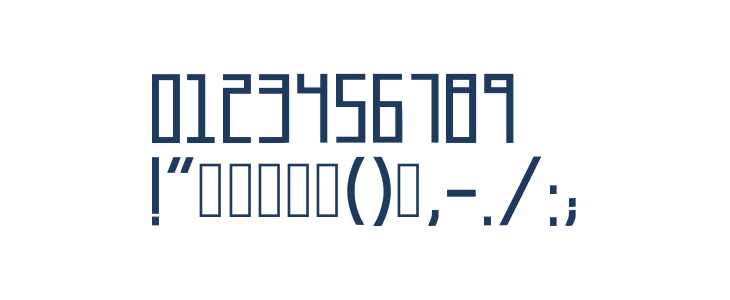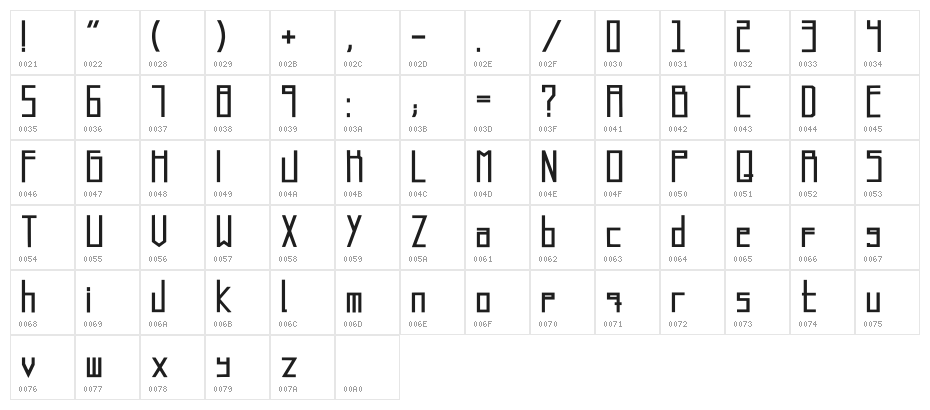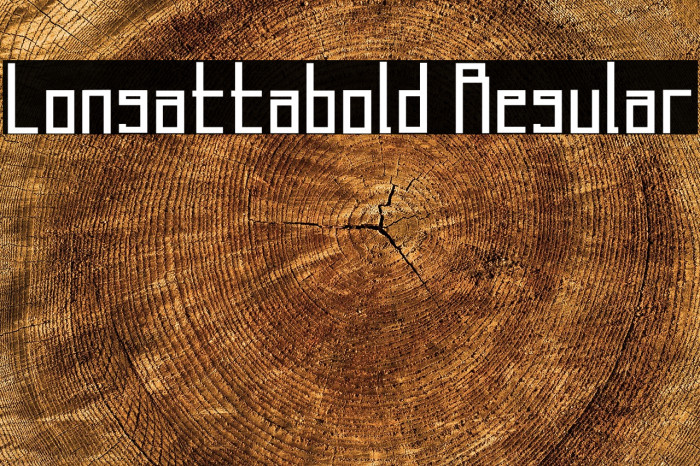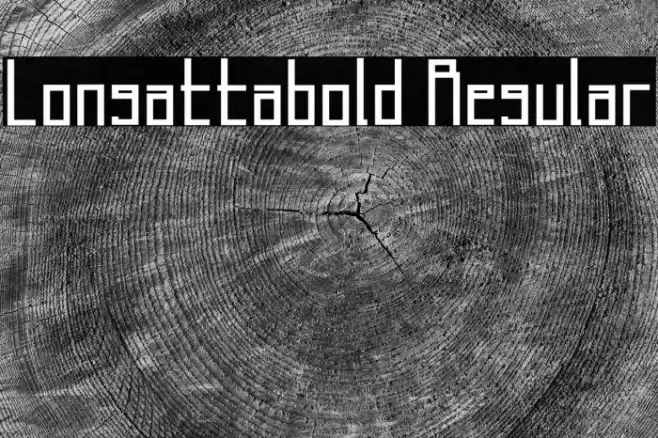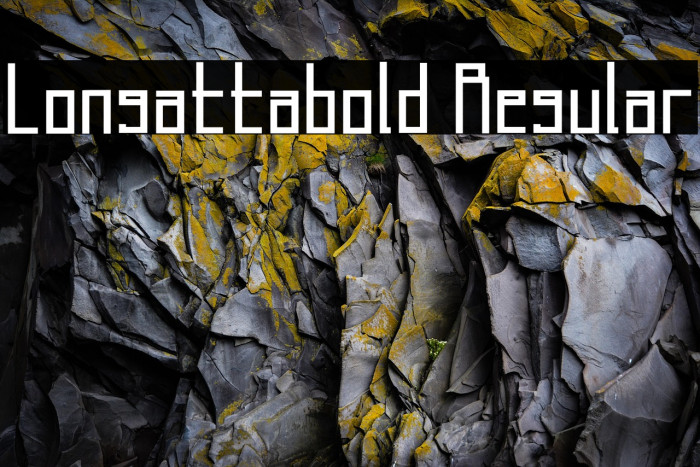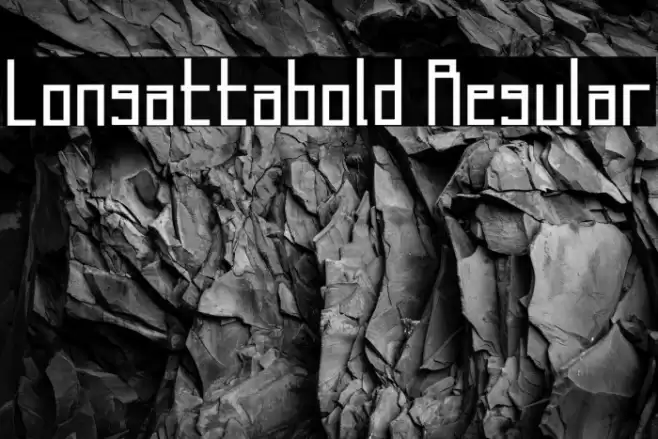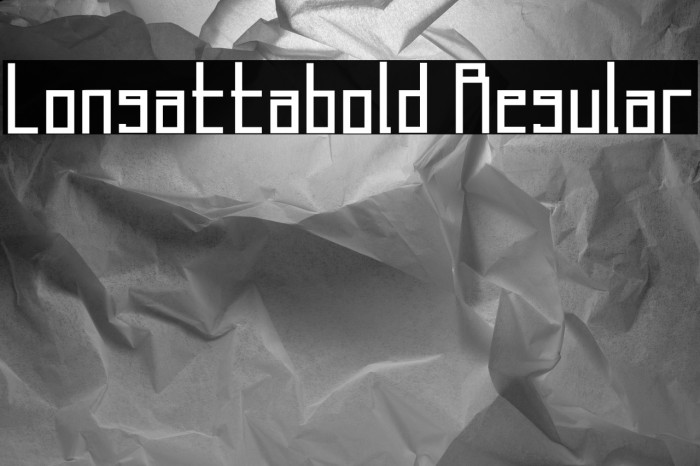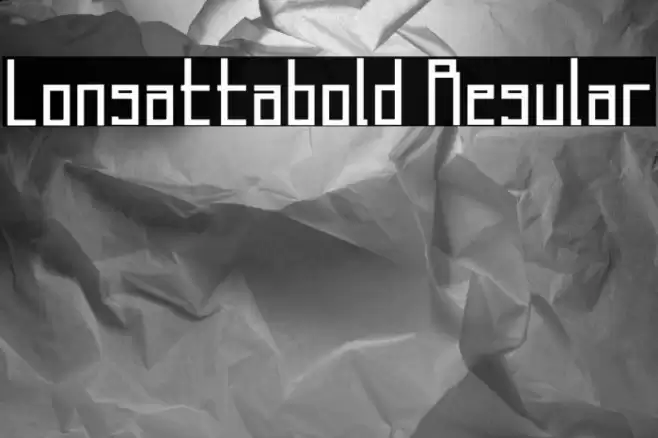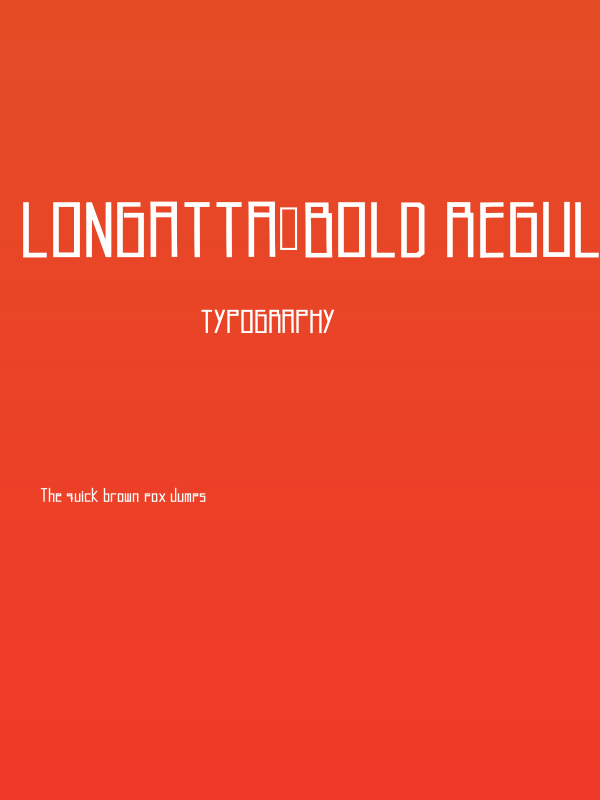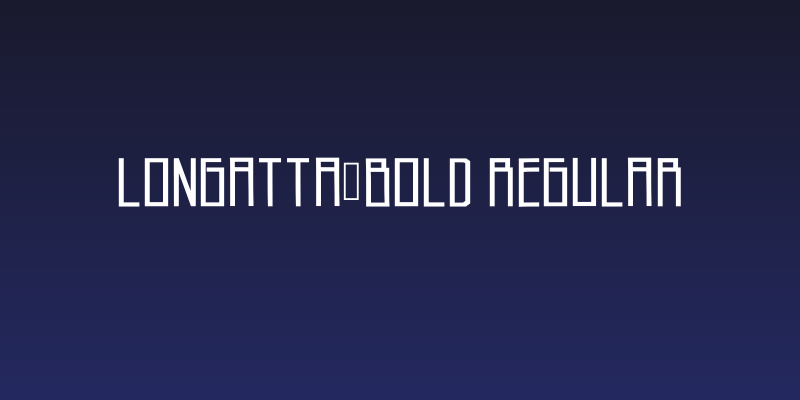
Longatta_bold Regular Font
Longatta_bold Regular Description
This font features a geometric and modern design with a strong emphasis on clean, straight lines and sharp angles. The uppercase and lowercase letters maintain a consistent height, creating a uniform appearance. The characters are slightly condensed, contributing to a compact and efficient use of space. The numbers and special characters follow the same design principles, ensuring a cohesive look across all elements. The bold weight of the font adds to its striking presence, making it suitable for attention-grabbing applications. The overall style is contemporary, with a hint of futuristic appeal, making it versatile for various design projects.